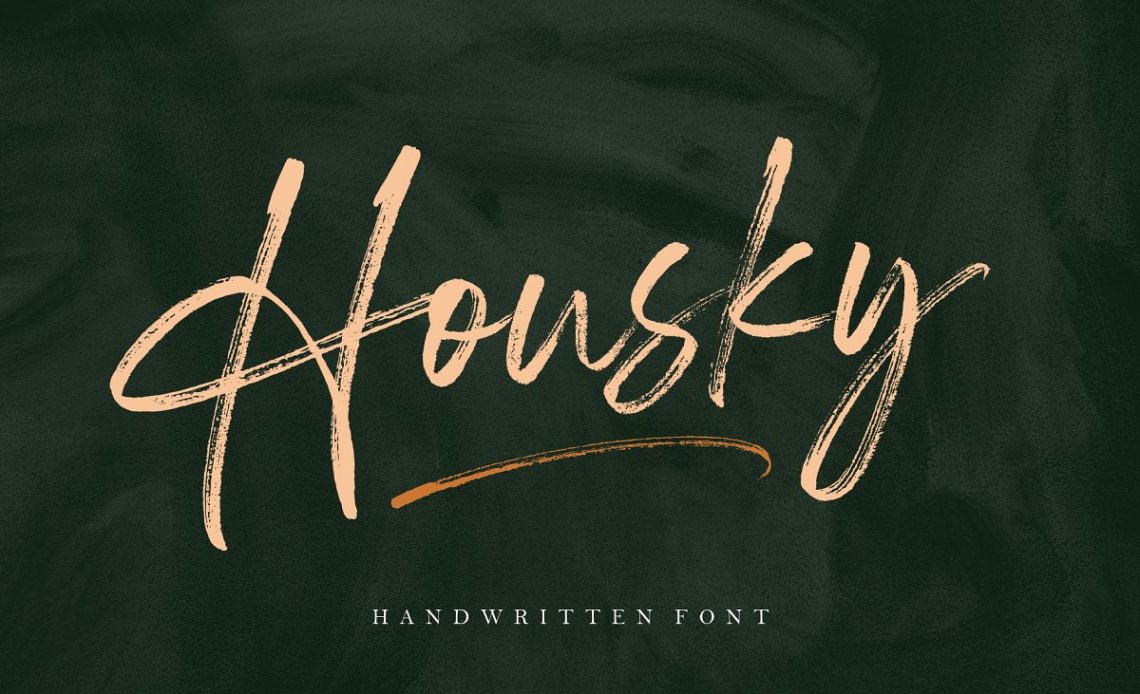
Introducing the new Housky Handwritten Font - the ultimate choice for all your creative projects! Created by the talented Megi Satyo W., this script font boasts a distinctive and sharp texture brush that will leave your audience mesmerized.
What sets Housky apart is its authentic handwritten feel, as if every stroke was meticulously crafted on paper using a coarse type brush. The result? A consistent texture that adds character and charm to any design.
But that's not all! Housky offers a world of possibilities with its alternative lowercase letters, each showcasing a unique style. Combine different characters from the same letter to create a truly one-of-a-kind look.
Whether you're designing stationery invitations, crafting captivating social media posts, or creating a memorable logo for your brand, Housky has got you covered. Its versatility knows no bounds!
Take your graphic design projects to new heights by incorporating Housky with various types of serif fonts. The seamless blend of script and serif will elevate your creations and leave a lasting impression on your audience.